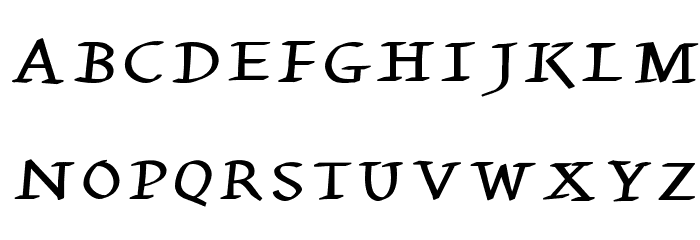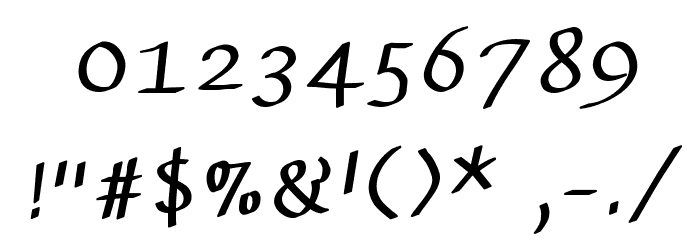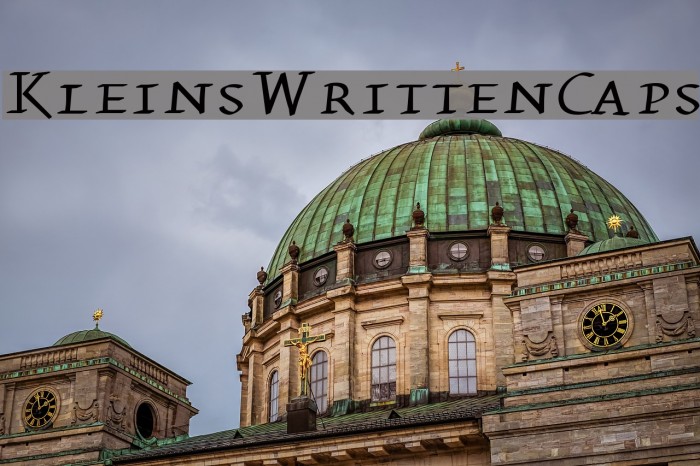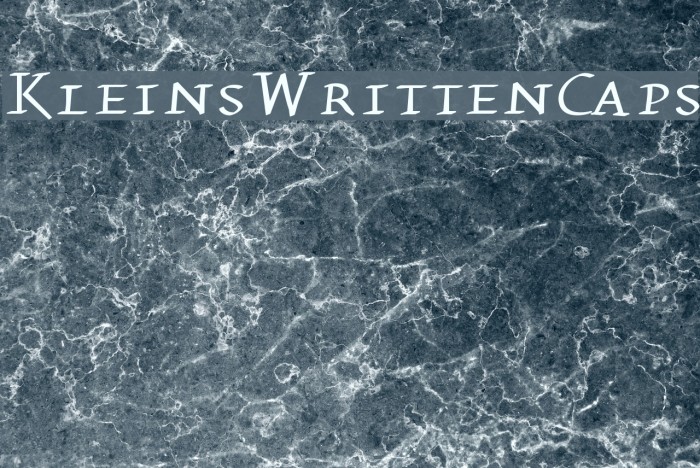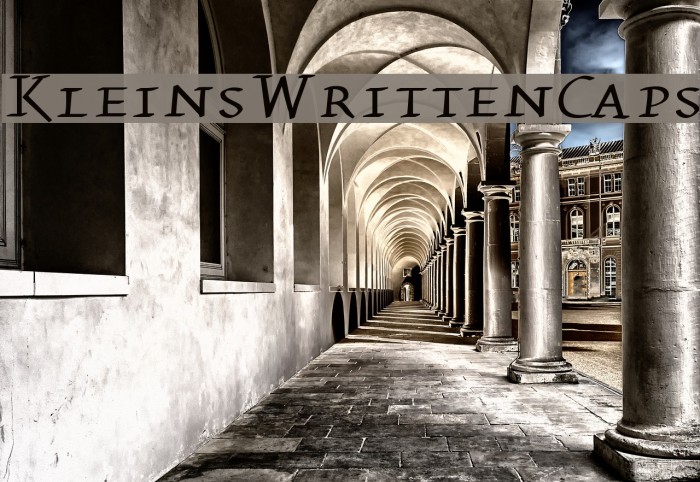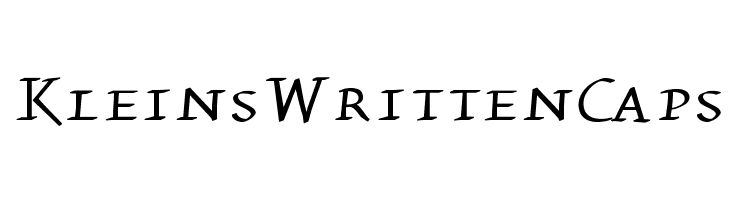
KleinsWrittenCaps Font
This font features a distinctive handwritten style with a slight slant, giving it a dynamic and lively appearance. The characters are elegantly crafted with a moderate contrast in stroke thickness, providing a sense of movement and fluidity. The uppercase letters are particularly expressive, with unique flourishes and curves that add character and charm. The numerals and special characters maintain the same stylistic elements, ensuring consistency throughout. This font is well-suited for projects that require a personal touch or a creative flair.
A dynamic handwritten font with elegant curves and moderate contrast.
- Proposed Projects: Ideal for invitations, greeting cards, branding, and creative projects that require a personal touch.
- Use Case: Headlines, Logos, Creative projects